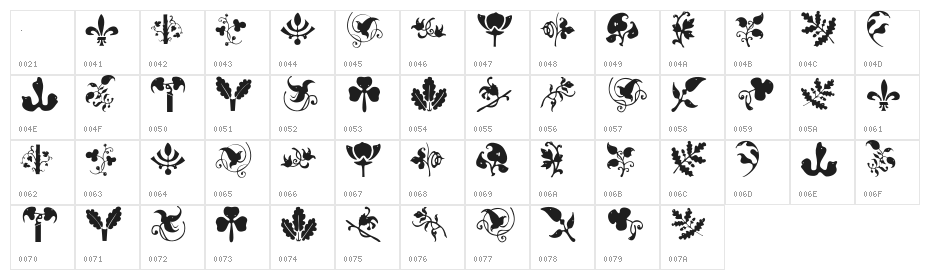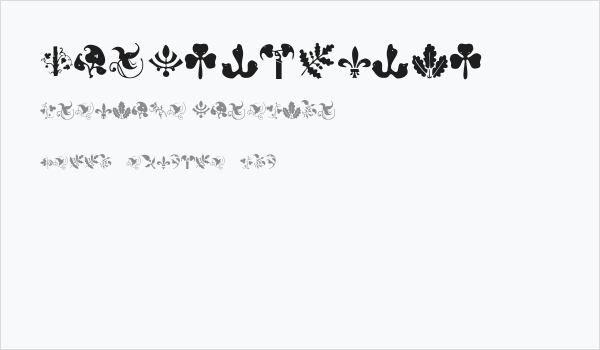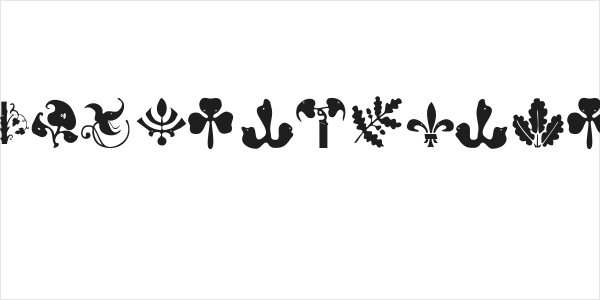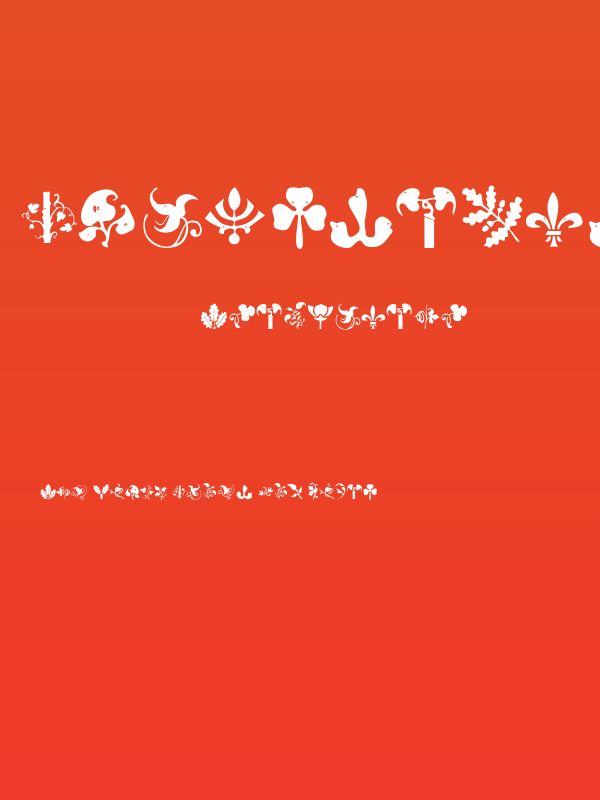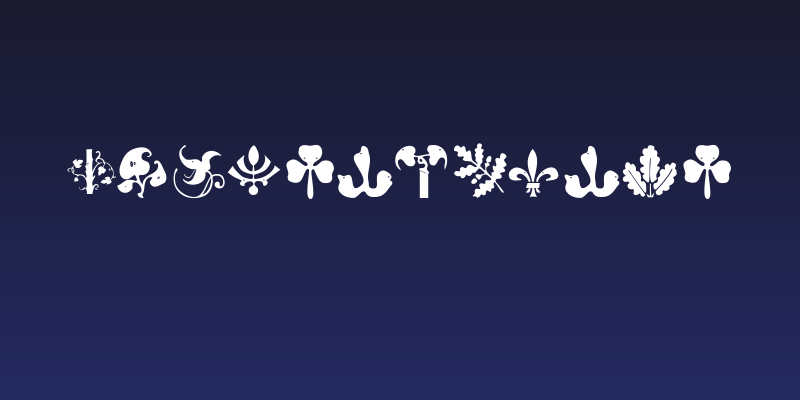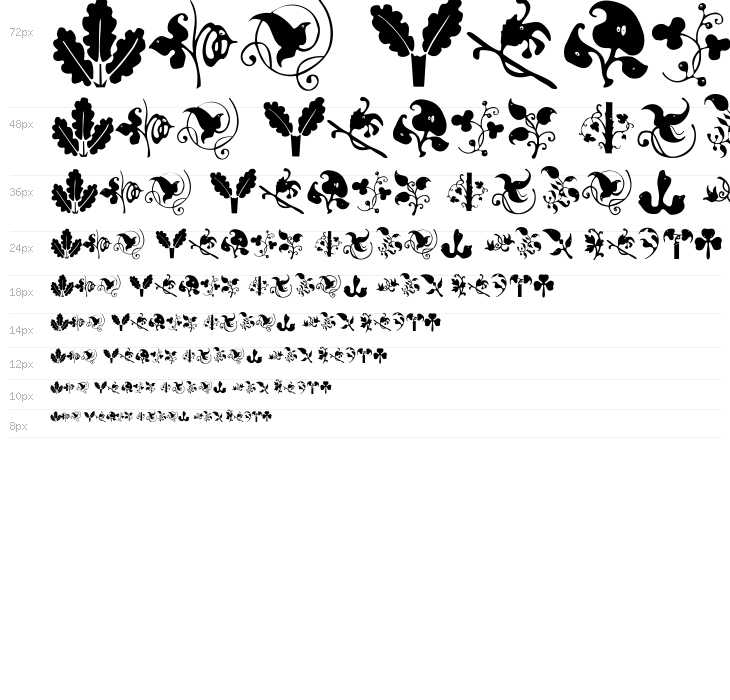
BirdsNPlants Font
BirdsNPlants Description
A decorative dingbat font featuring a variety of intricate plant and bird silhouettes, including leaves, flowers, and stylized birds, all rendered in bold black shapes with ornate, swirling details.
Overall StyleDecorative, Ornamental, Nature-inspired
Use CaseBorders, embellishments, icons, and decorative accents.
Proposed ProjectsInvitations, greeting cards, scrapbooking, decorative borders, nature-themed branding, and ornamental dividers.